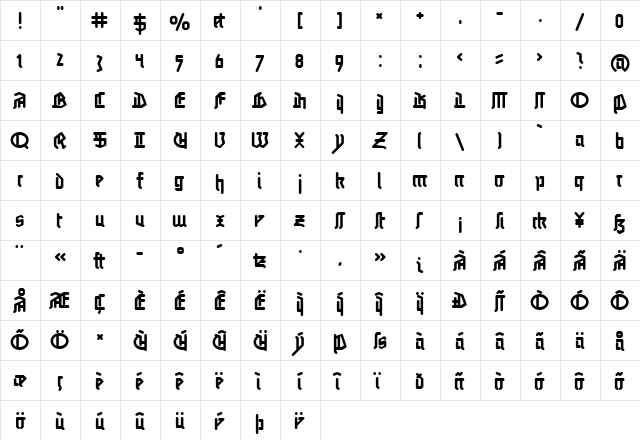
LTAuferstehung Regular
LTAuferstehung is a composed and adaptable typeface that performs quietly and consistently across a wide range of design contexts.